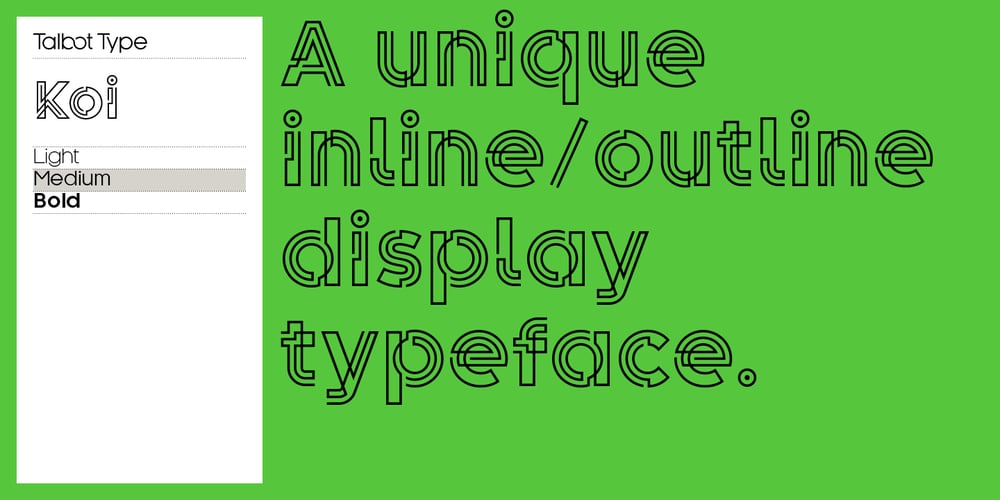
Koi Font Family was designed by Adrian Talbot and published by Talbot Type. Koi contains 6 styles and family package options. Koi is a highly original, outline display font. Each character is represented by a single continuous line to create a fluid and rhythmic look. The result is something of a hybrid, sitting somewhere between an outline and an inline style, and with an asymmetrical look — something quite rare in a typeface. Many of the characters look like ready made logotypes. Further customisation is easily achieved by extending the end strokes of characters, possibly aligning them and joining them to others to create bespoke arrangements.